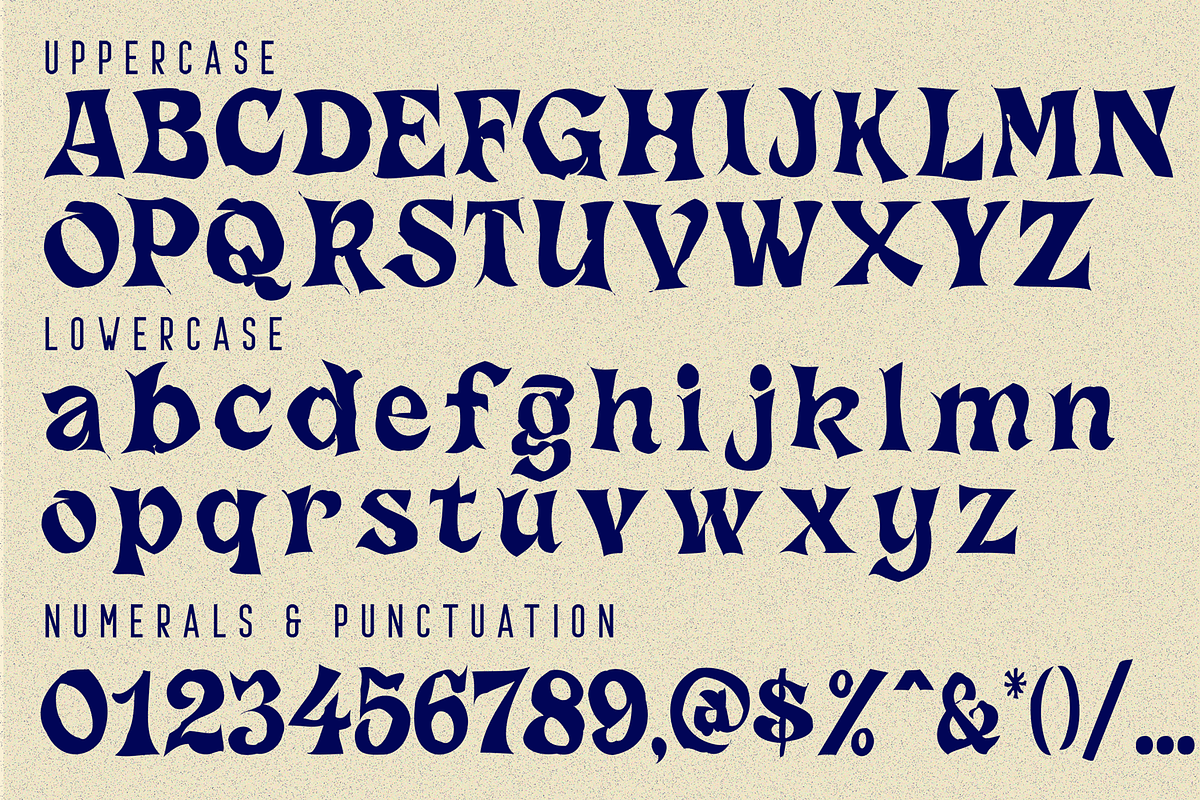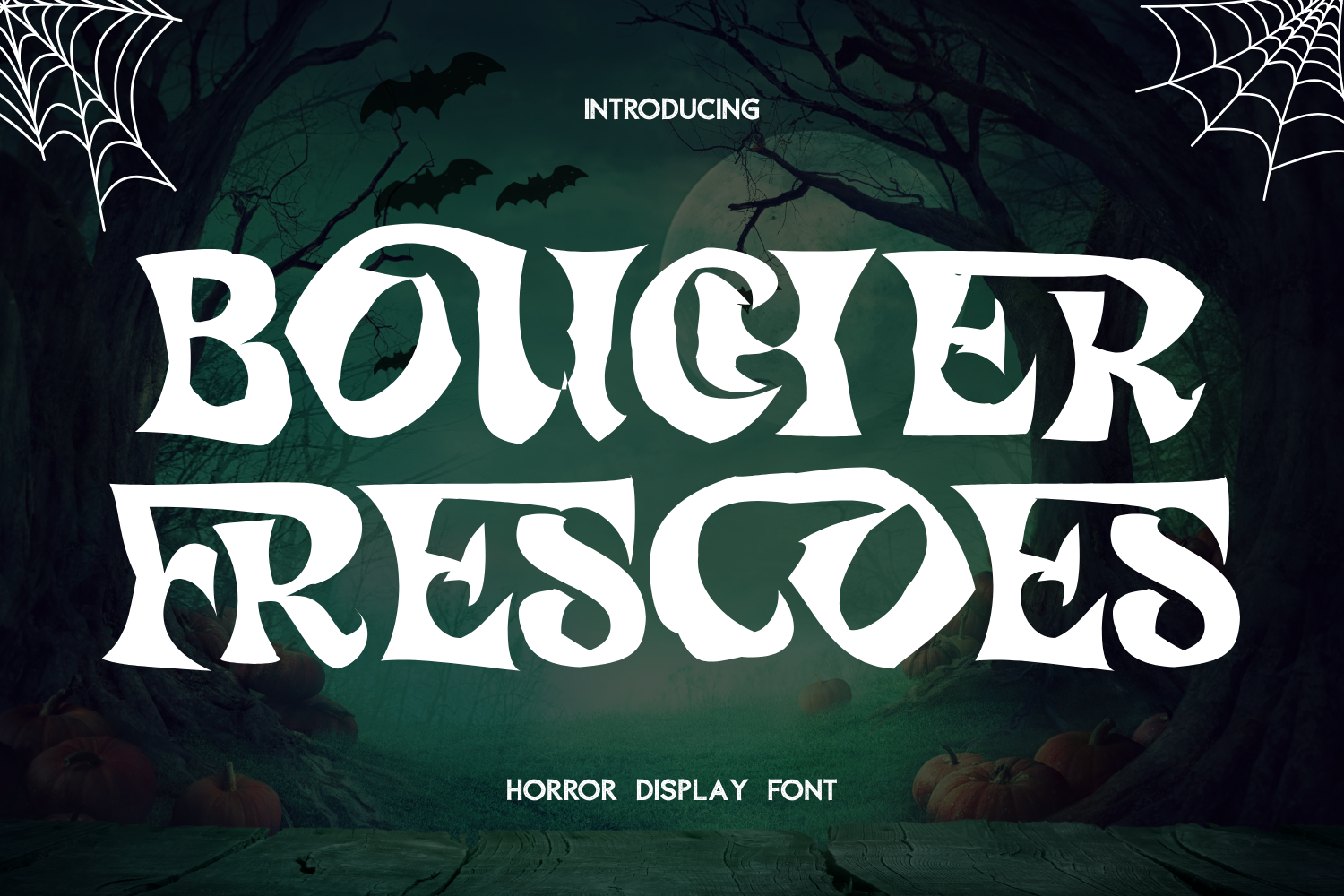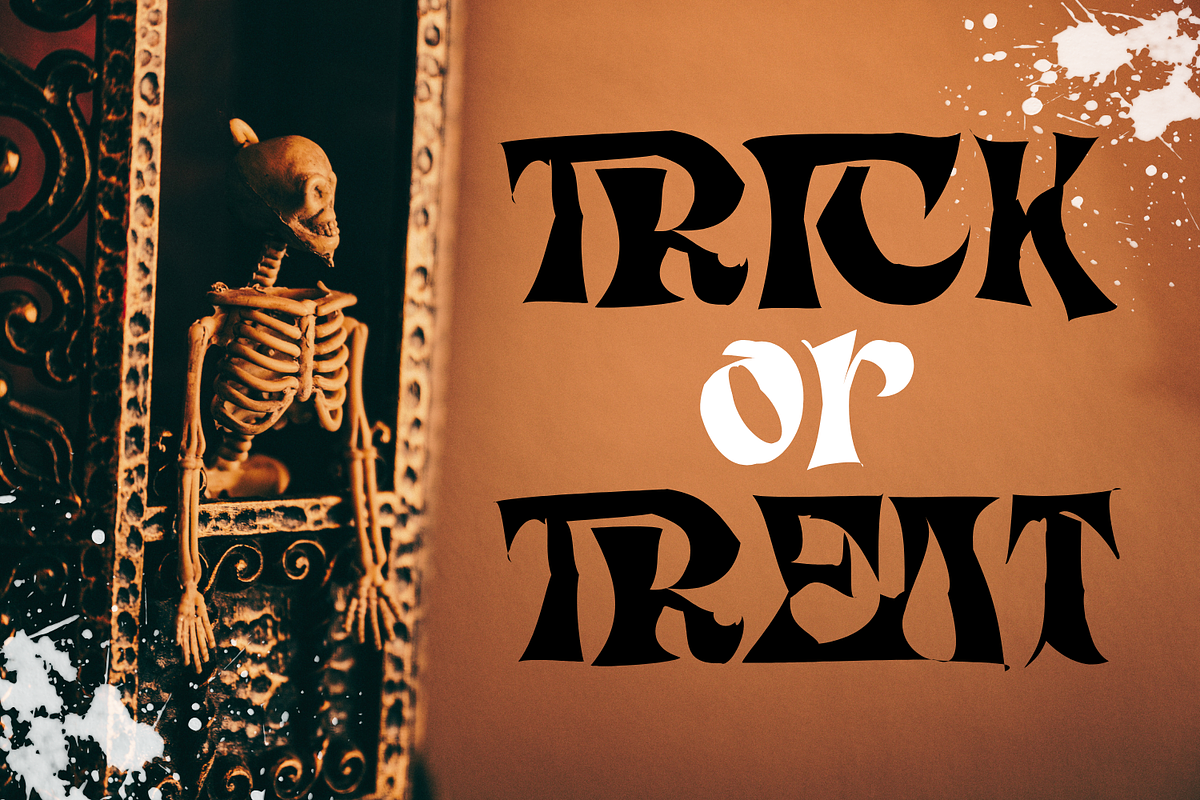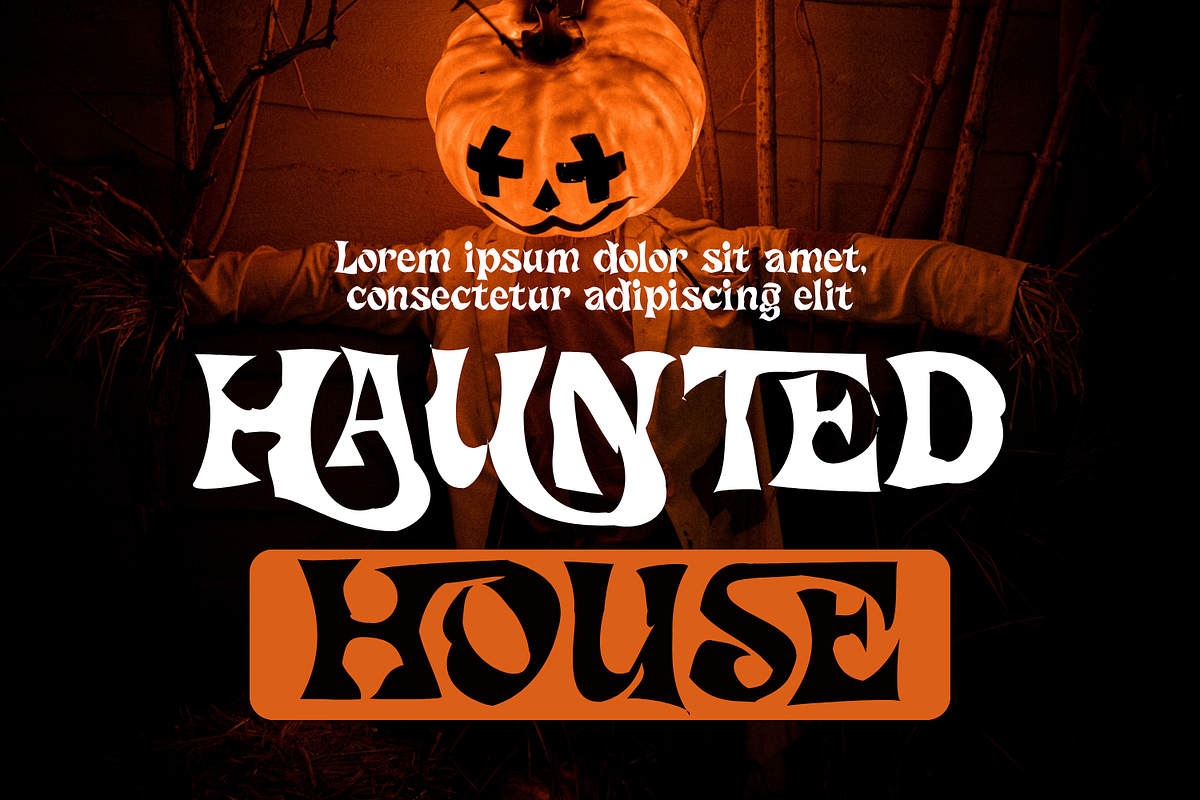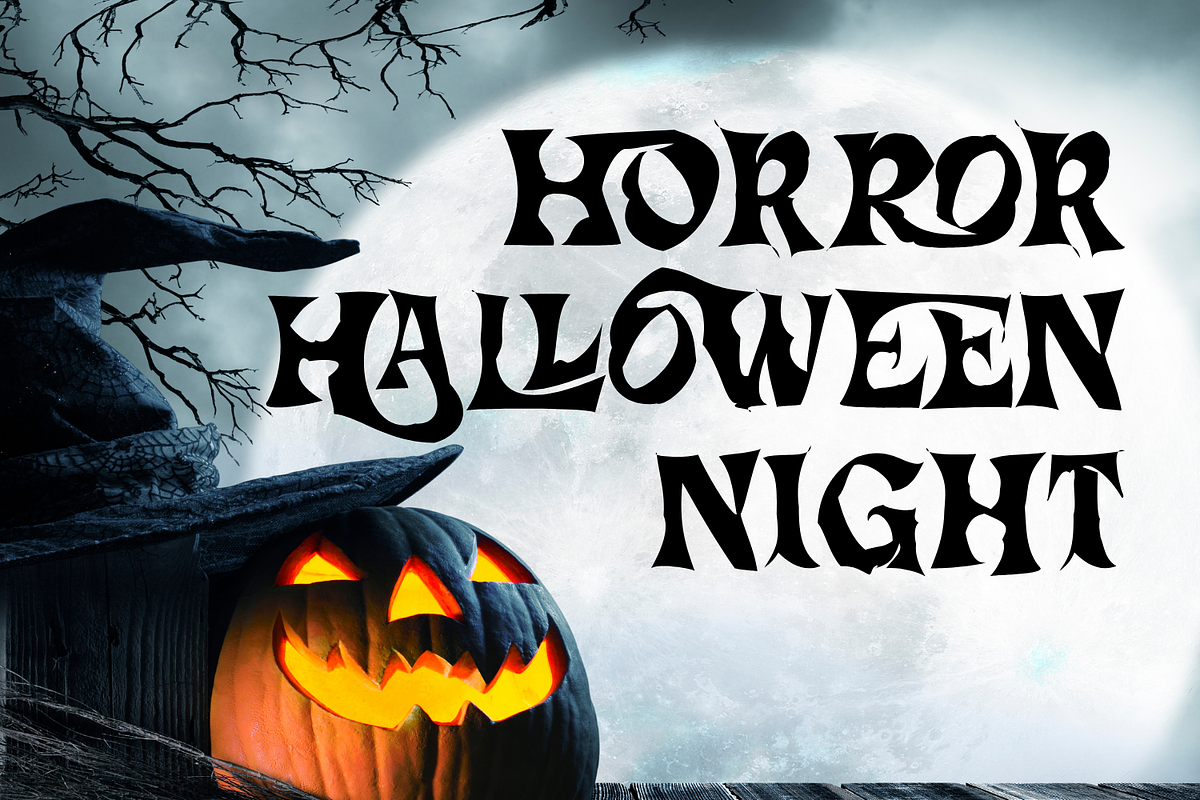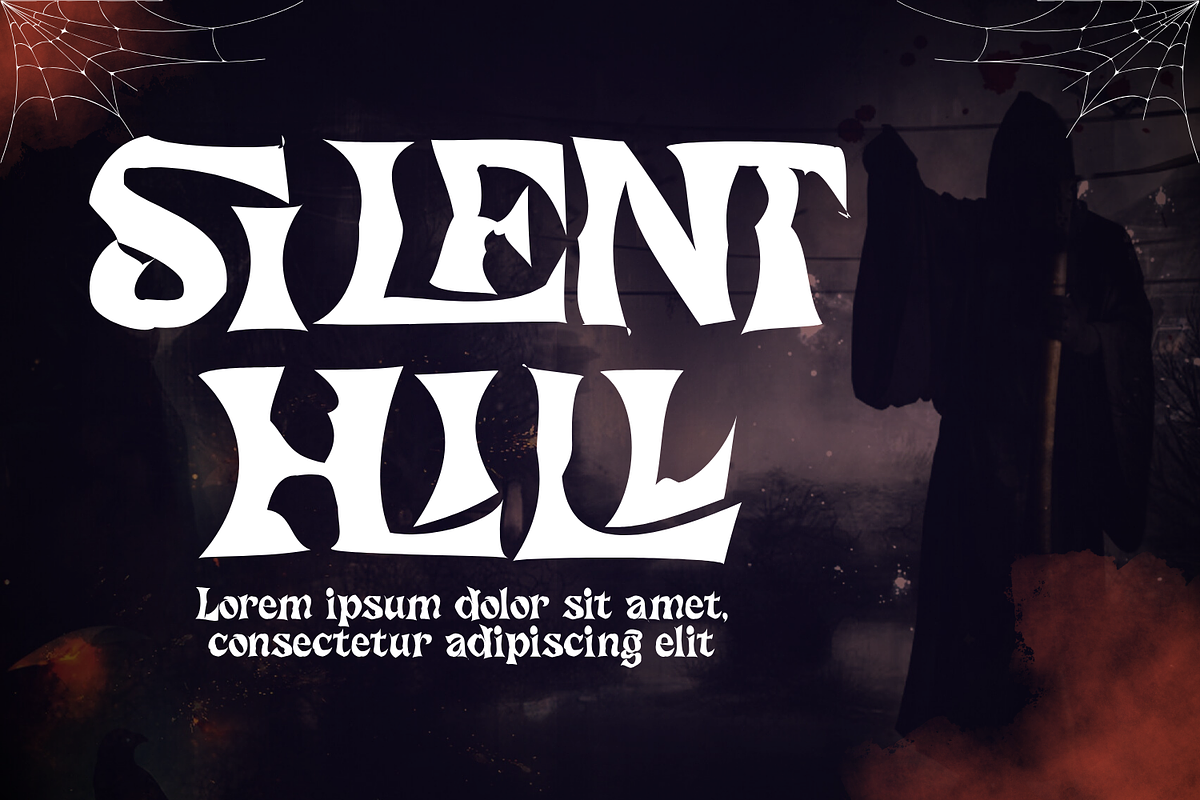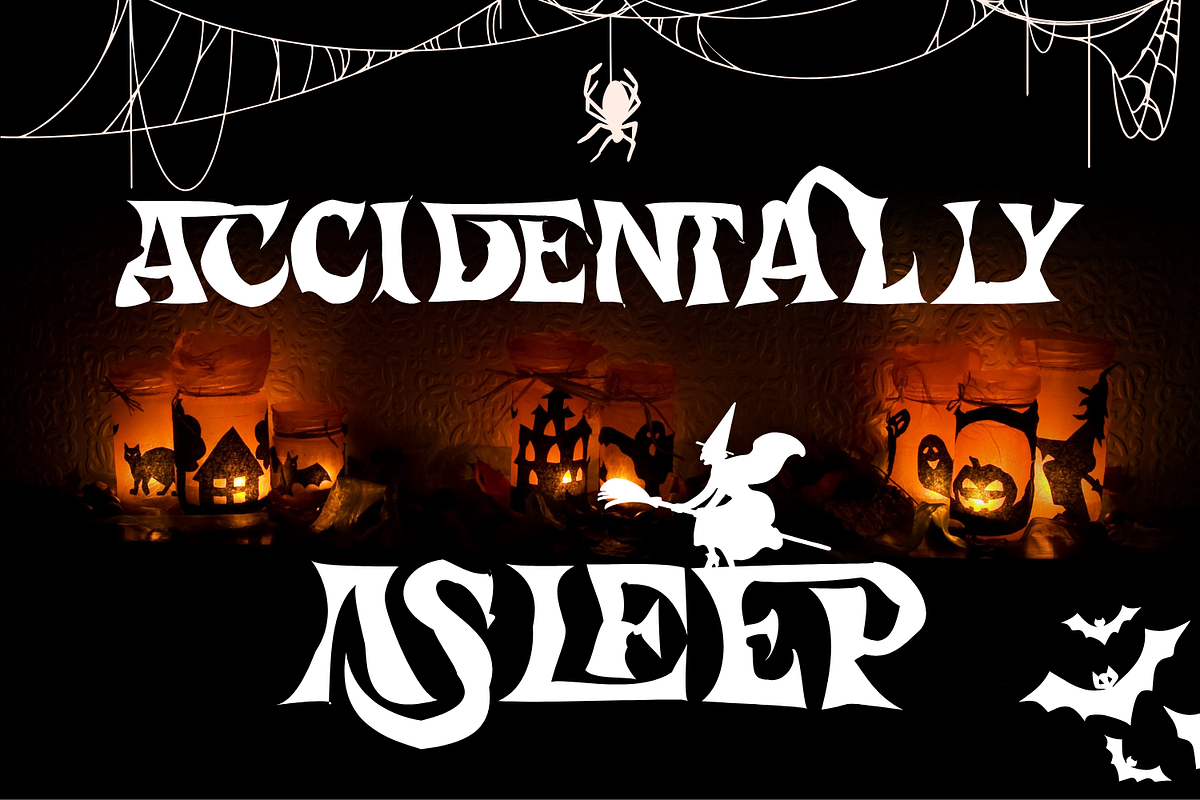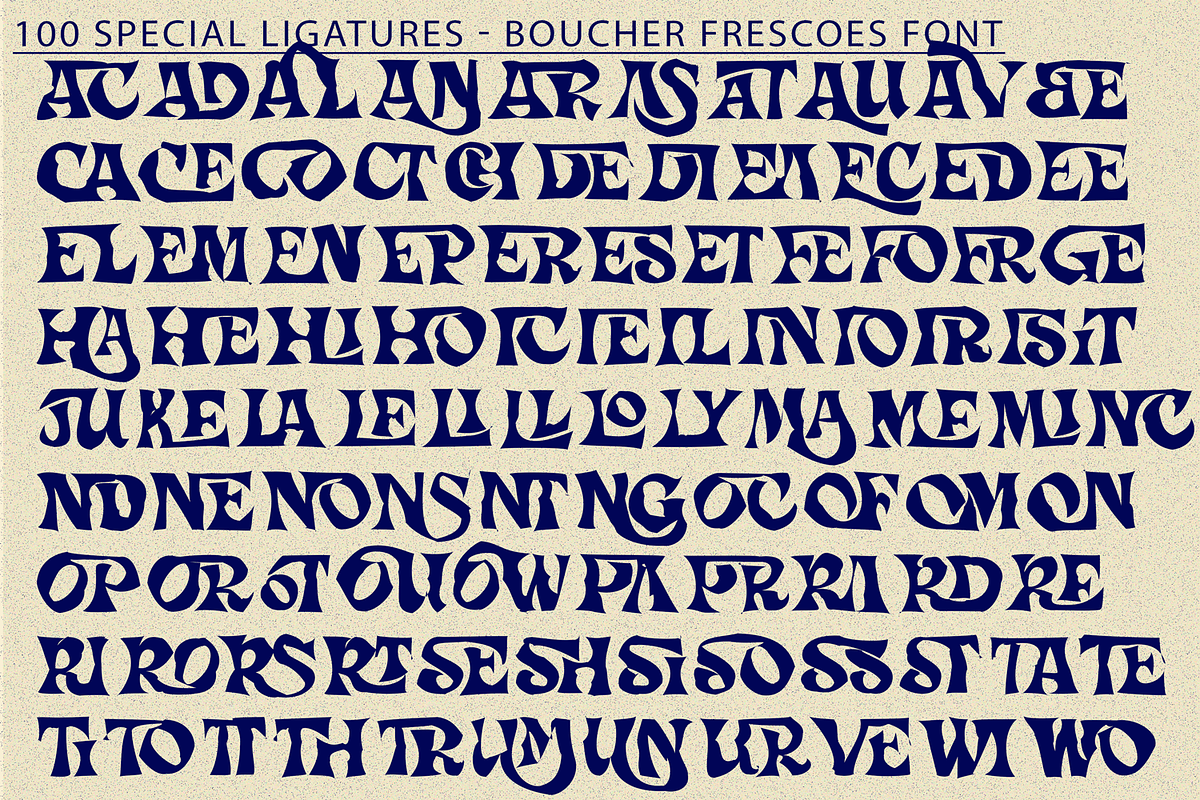
BOUCHER FRESCOES - HORROR FONT
BOUCHER FRESCOES - HORROR FONT, a bold Psychedelic Serif Display font inspired by retro art and vintage music poster aesthetics. With its free-flowing letterforms, irregular shapes, and decorative energy, this font captures the expressive spirit of the ’70s while staying relevant for modern creative projects. Perfect for music branding, editorial headlines, retro posters, packaging, and artistic visuals, BOUCHER FRESCOES brings personality and movement to every composition.
- Uppercase & Lowercase Letters
- Around 100 Special Ligatures for expressive combinations
- Numerals & Punctuation for versatile use
- Accented Characters supporting multiple languages
About 100 ligatures combined with Stylistic Alternates Font:
AC AD AL AN AR AS AT AU AV BE CA CE CH CO CT DE DI EA EC ED EE EL EM EN EP ER ES ET FE FO FR GE HA HE HI HO IE IC IL IN IO IR IS IT JU KE LA LE LI LL LO LY MA ME MI NC ND NE NG NO NT NS OC OF OM ON OO OP OR OT OU OW PA PR RA RD RE RI RO RS RT SE SH SI SO SS ST TA TE TH TI TO TR TT UM UN UR VE WI WO